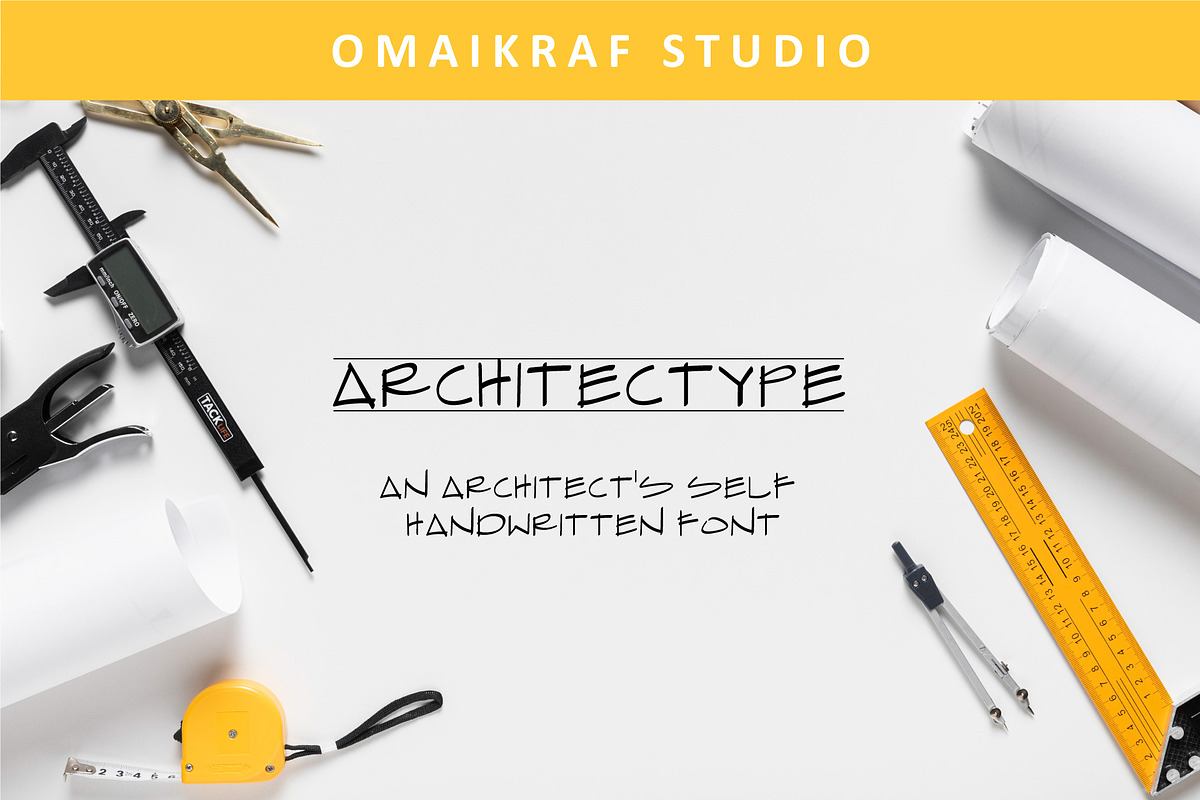
Architectype | Architect's Sidekick Font Free Download is a sleek, modern typeface inspired by architectural design. With its clean, geometric lines and minimalistic style, this font is perfect for creating blueprints, architectural logos, design portfolios, and any project that needs a professional, structured look. It embodies precision and clarity, making it a great choice for design and construction industries.
Using the Architectype | Architect's Sidekick Font Free Download adds a contemporary, refined touch to your typography. Whether you’re working on architectural presentations, designing a modern website, or creating sleek business cards, this font provides a sharp, professional look that stands out with understated elegance.